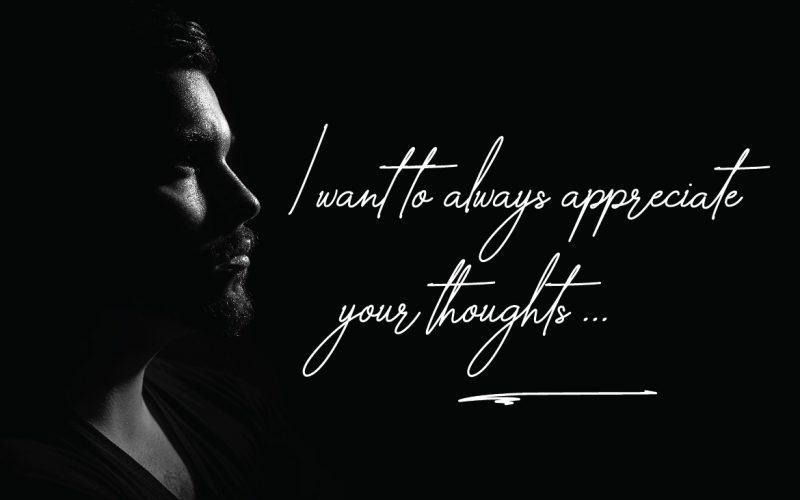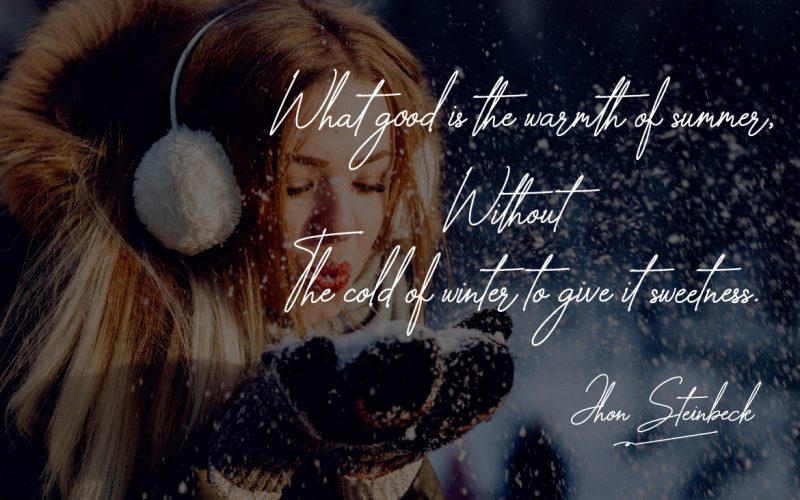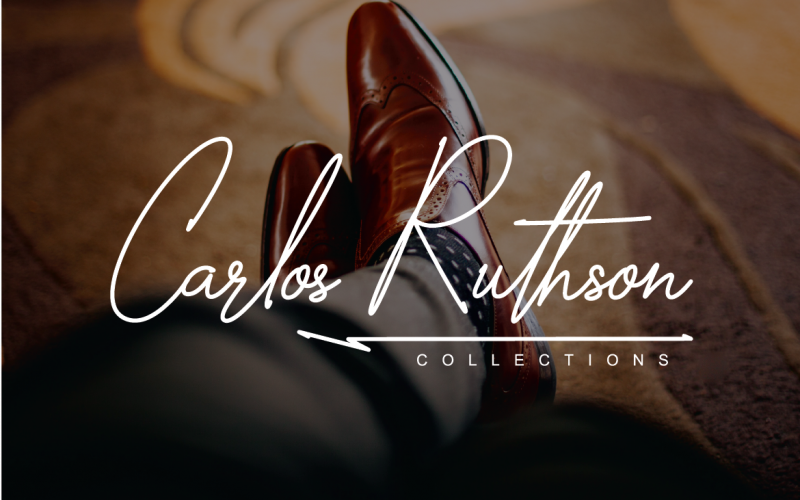
Zhegotte Script Font
Hello! A stylish signature font, smooth line, classic and elegant touch. Introducing Zhegotte Font. Zhegotte is a luxurious signature font. There are lots of ligatures and swashes included to add some elegance to your designs. This font is suitable for t-shirts, signage, logos, headlines, branding, packaging, etc.